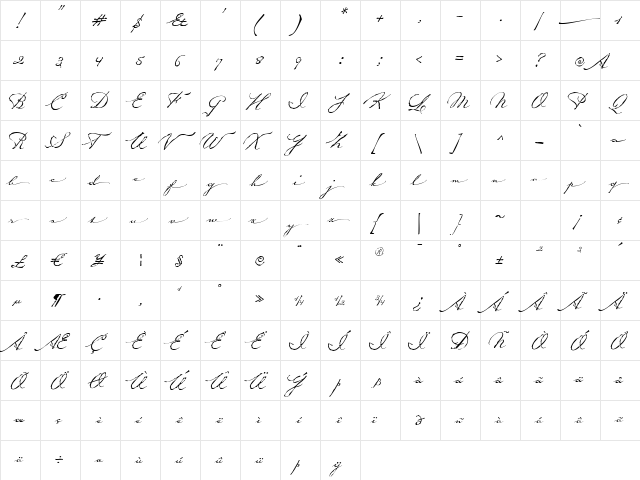
Petronella-Alt Regular
Design Context for Petronella-Alt Typeface
Petronella-Alt is a composed and adaptable typeface that performs quietly and consistently across a wide range of design contexts.